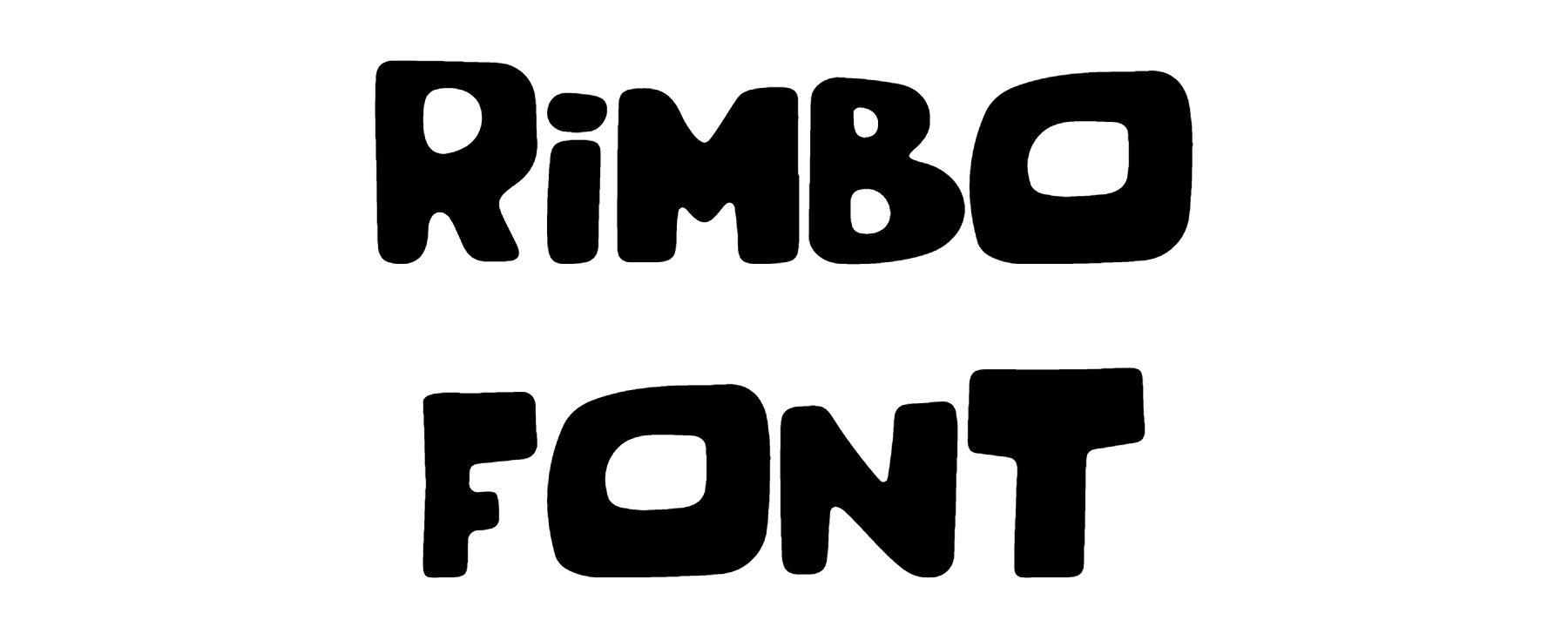
RIMBO
RIMBO is a cartoon font created by Marcelo Reis Melo and released through FGD. Its bouncy, rounded letters feel playful, like lettering from a cartoon or a comic book. It's a free download, and you can try it with your own text in the preview above first.
- Designer: Marcelo Reis Melo
- Publisher: FGD
- Languages: English, Spanish and Italian
What You Can Type With RIMBO
With complete upper and lowercase letters and all ten digits, RIMBO is ready for real wording, not just a single headline. Everyday marks like !, ? and # are there too. Thanks to its accented letters, it also works for Spanish and Italian, not just English.
Where RIMBO Works Best
Think of RIMBO for kids' books, birthday invites and fun YouTube thumbnails. Cartoon fonts are great for short, fun lines. If you place it over a busy photo, add a thick outline or a drop shadow so it stays readable.
Who designed RIMBO font?
RIMBO was designed by Marcelo Reis Melo and published by FGD.
Does RIMBO support accented letters?
Yes. RIMBO includes the accented letters needed for Spanish and Italian, so it works for more than just English.